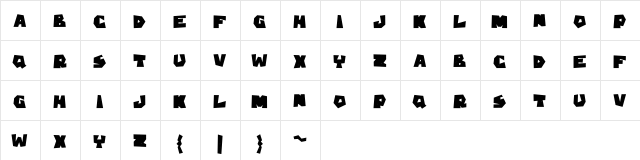
Vuku Regular
Design Context for Vuku Typeface
Vuku is a composed and adaptable typeface that performs quietly and consistently across a wide range of design contexts.